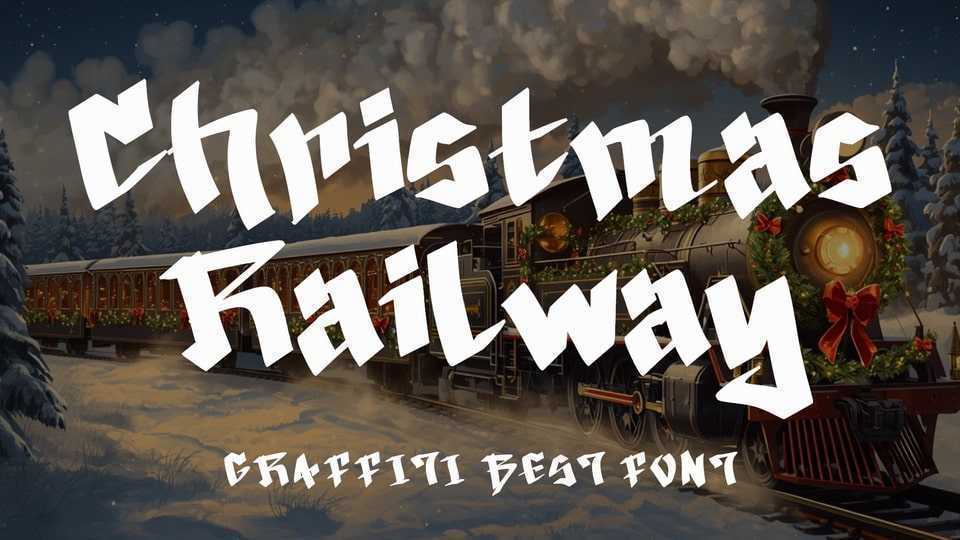
Download Christmas Railway font, a bold, angular display typeface inspired by graffiti and urban style. This powerful typeface features sharp edges and an aggressive lean, making it stand out in headlines,